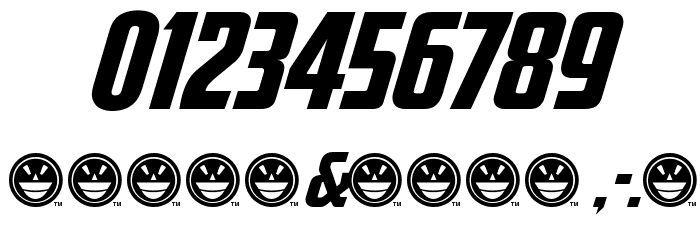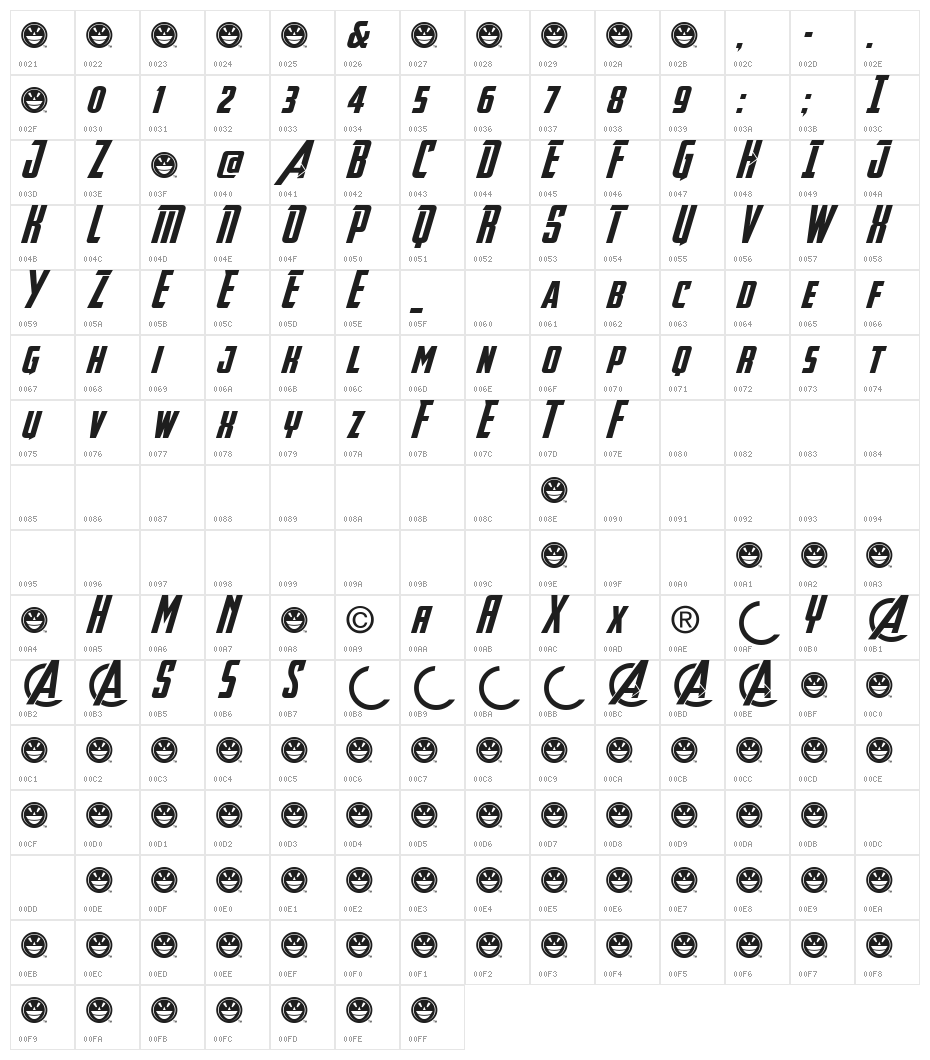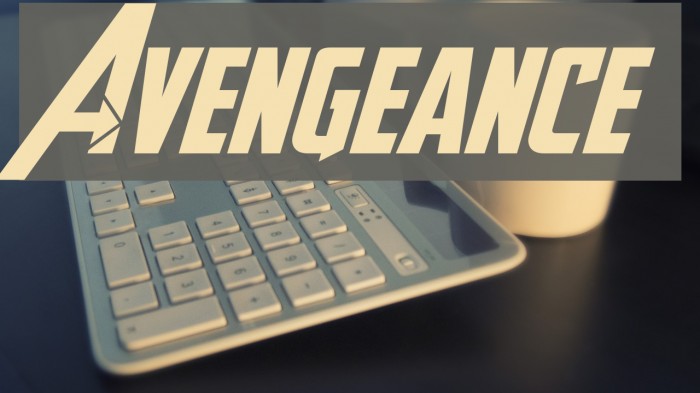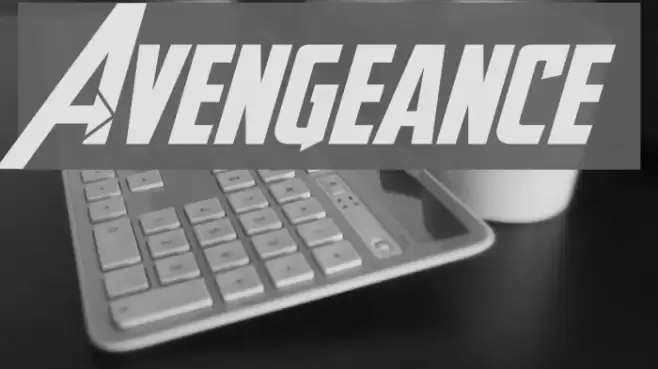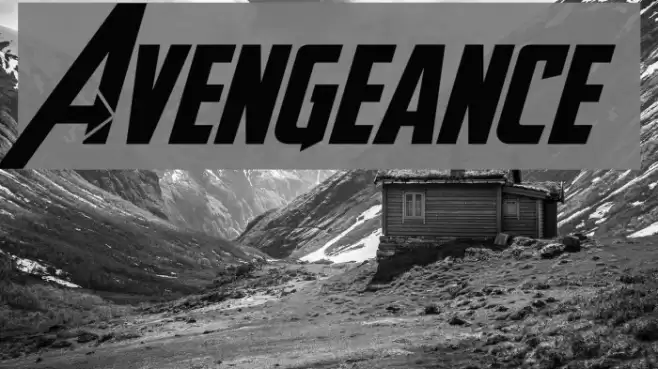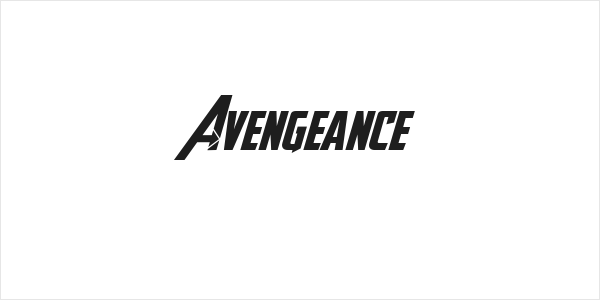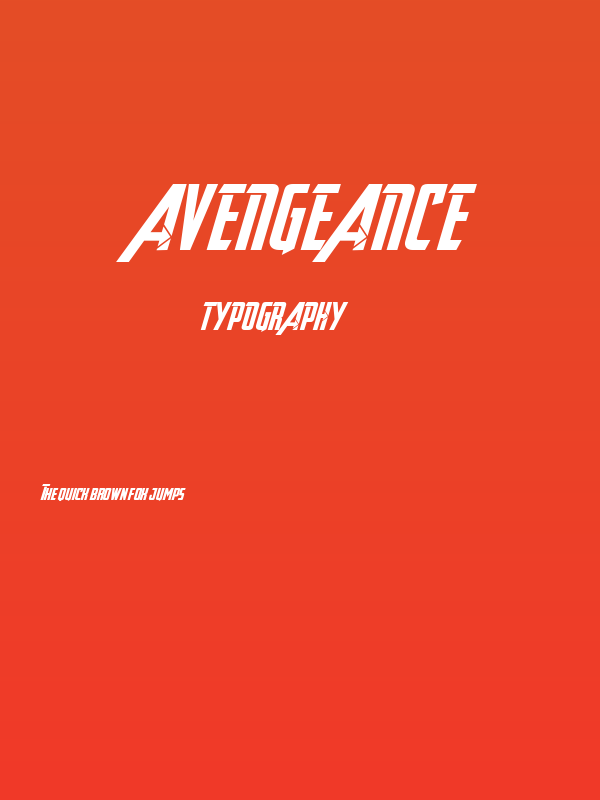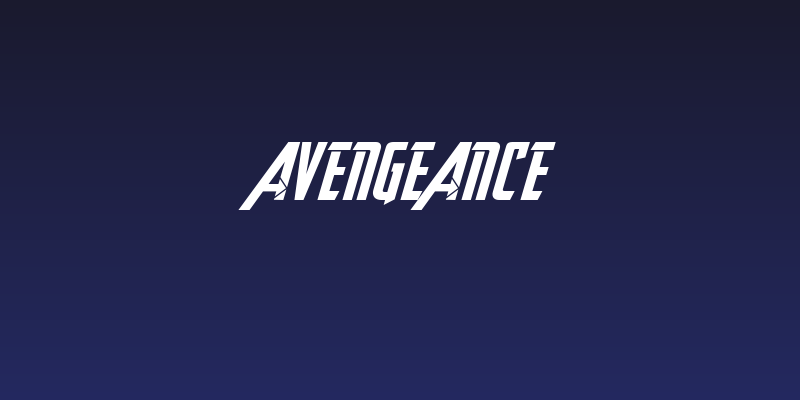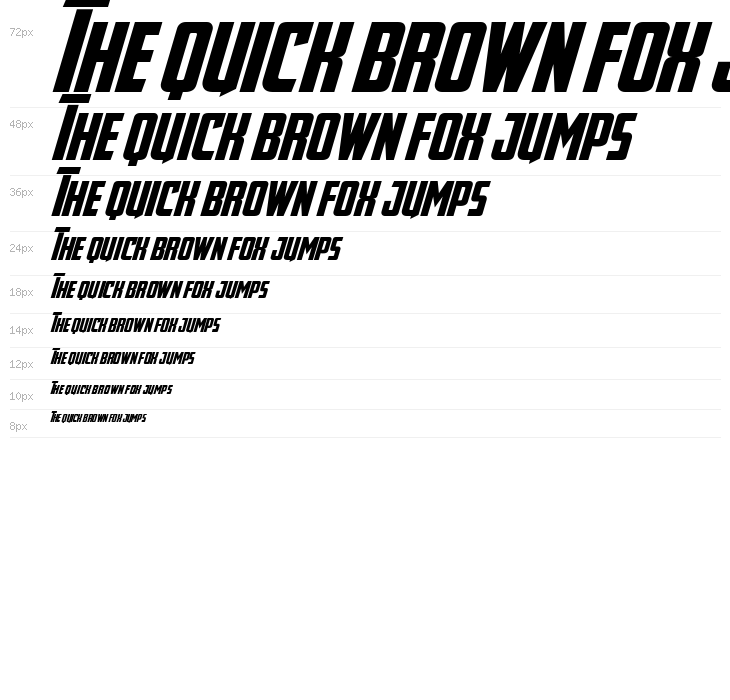
Avengeance Font
Avengeance Description
This font features a bold and dynamic design with sharp, angular edges and a strong presence. The uppercase letters are particularly striking, with a forward-leaning stance that conveys a sense of motion and energy. The lowercase letters maintain the same boldness, ensuring consistency throughout the typeface. Numbers and special characters are designed to match the overall aesthetic, making them suitable for impactful displays. The font's style is reminiscent of action and adventure themes, making it ideal for projects that require a powerful and assertive look.